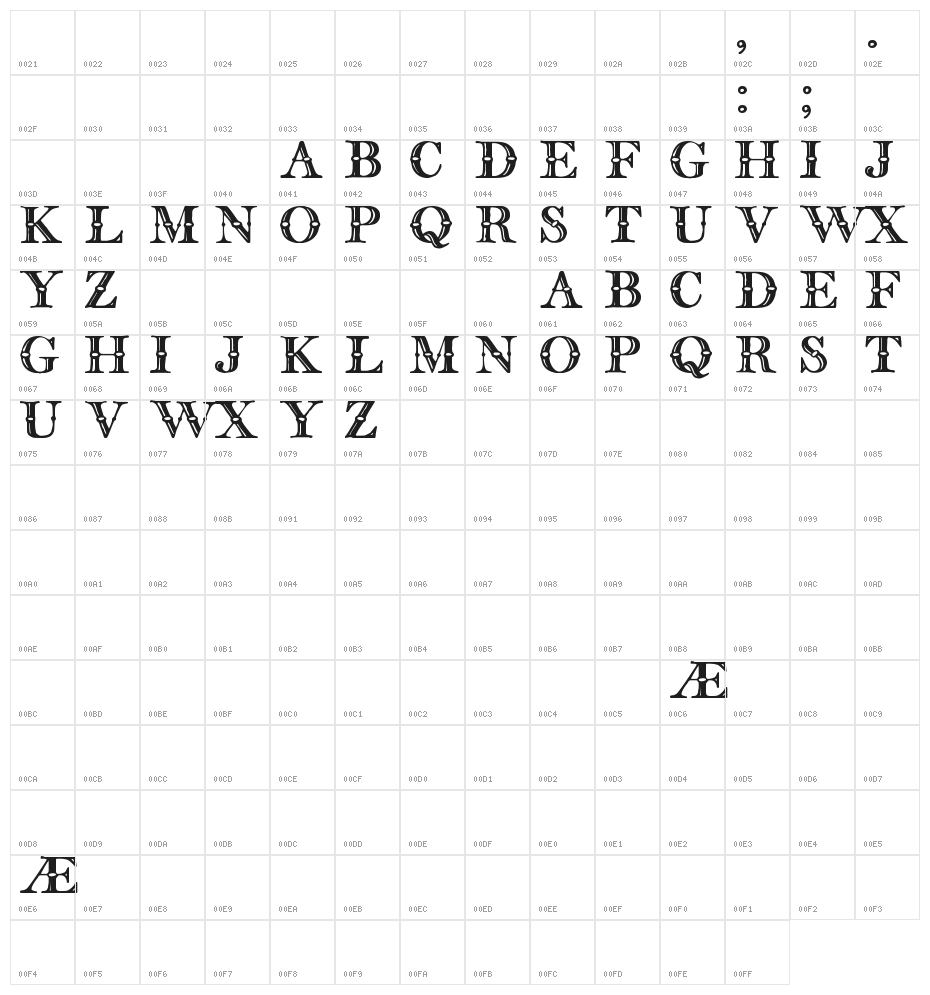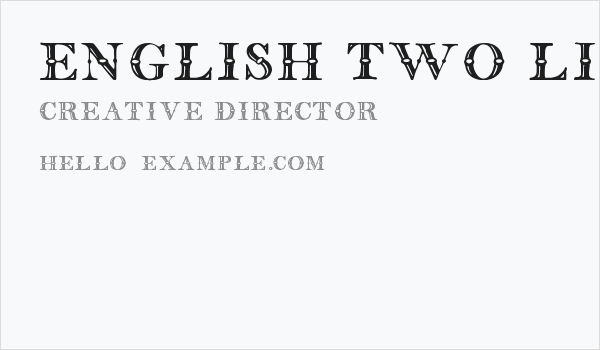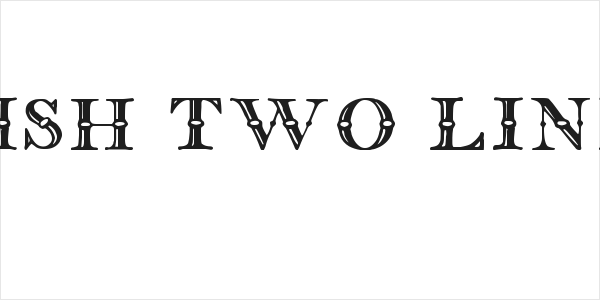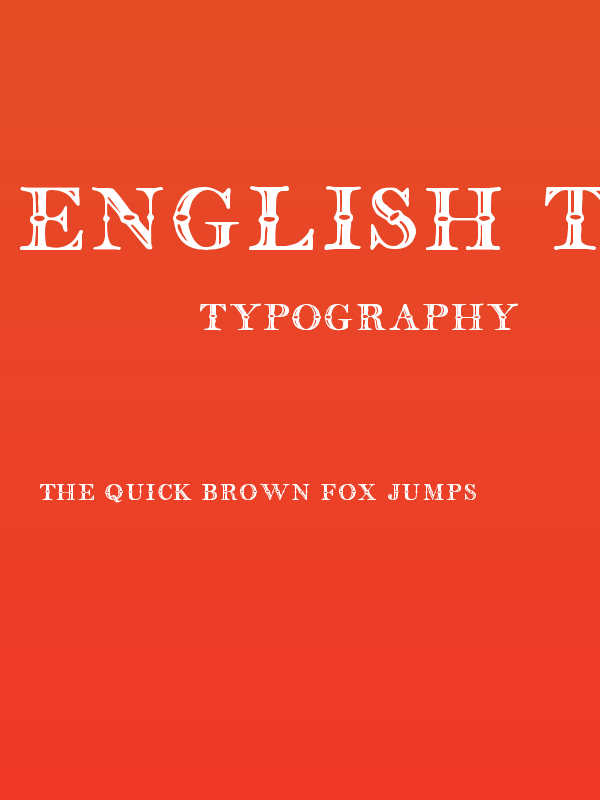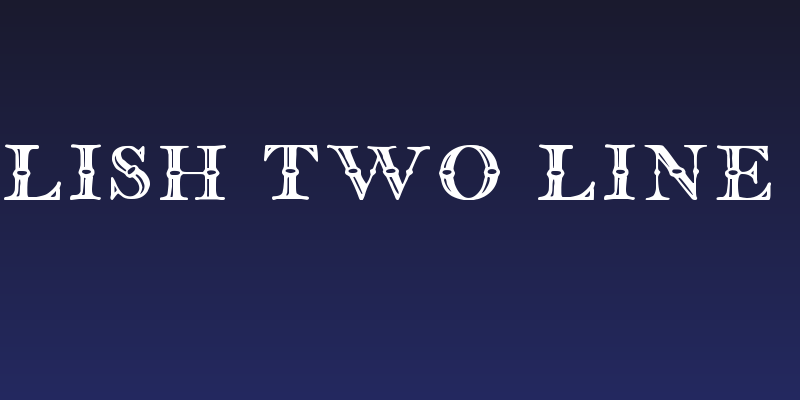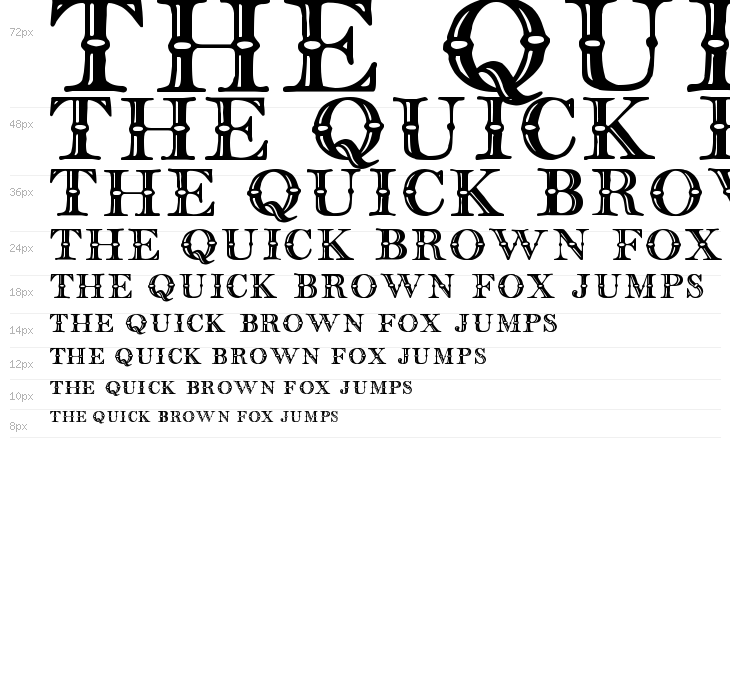
english two line tfb Font
english two line tfb Description
This font features a decorative style with intricate detailing within each character, reminiscent of vintage or Victorian-era design. The uppercase letters are bold and prominent, with a unique two-line effect that adds depth and complexity. The characters are well-defined, with sharp serifs and a distinct contrast between thick and thin strokes, enhancing the ornate appearance. The overall aesthetic is both classic and eye-catching, making it suitable for projects that require a touch of elegance and historical flair.
| Proposed Projects | Ideal for vintage-themed posters, book covers, invitations, and branding that seeks a classic, elegant touch. |